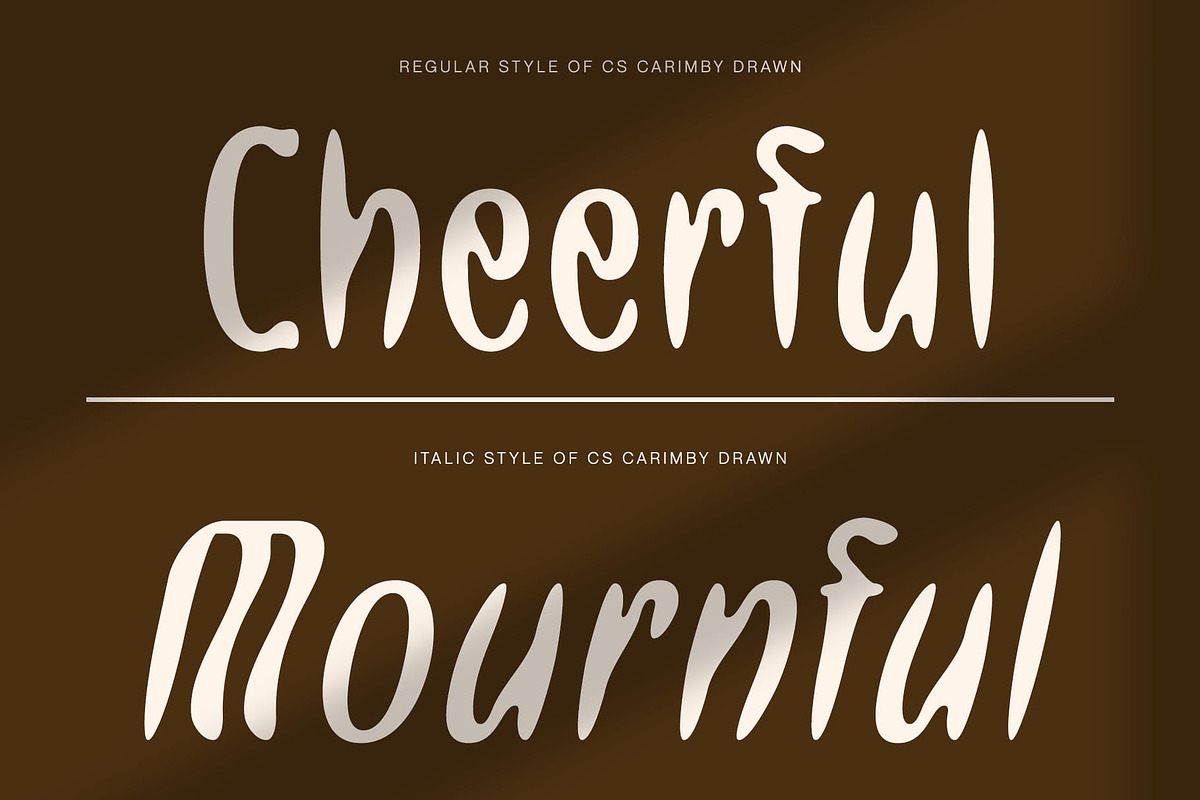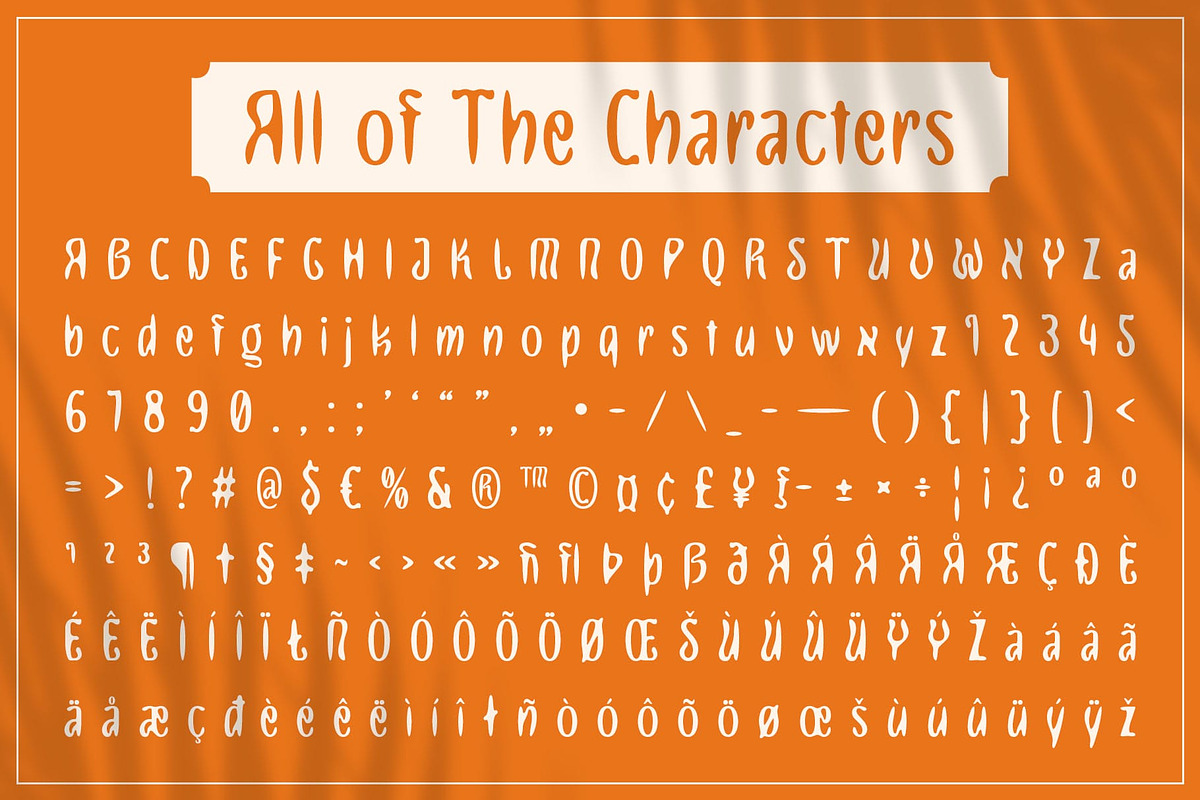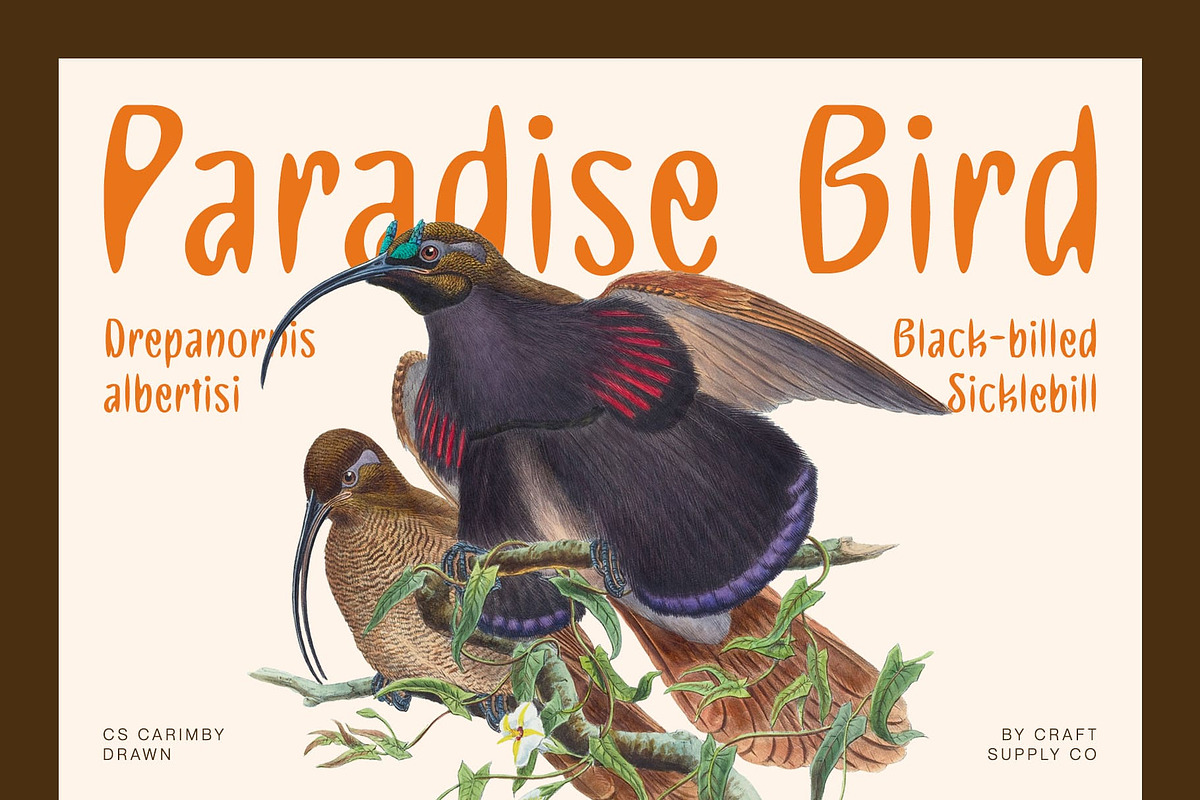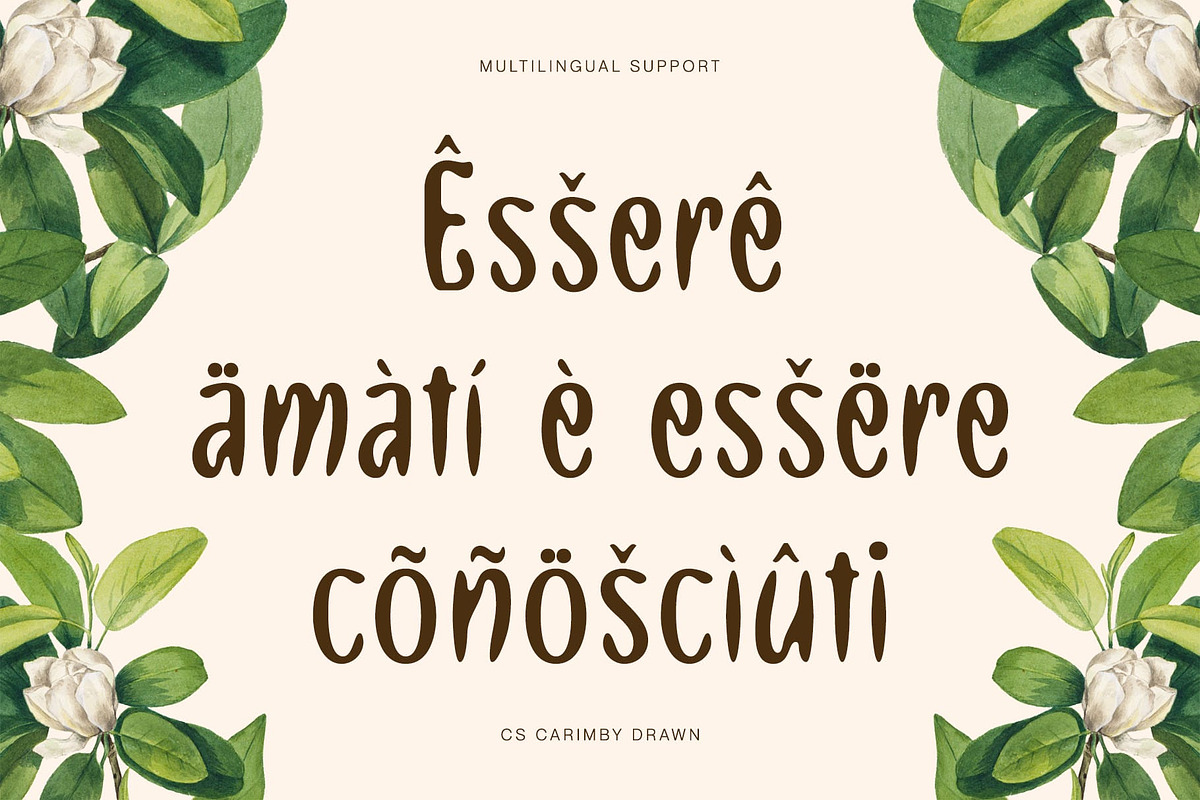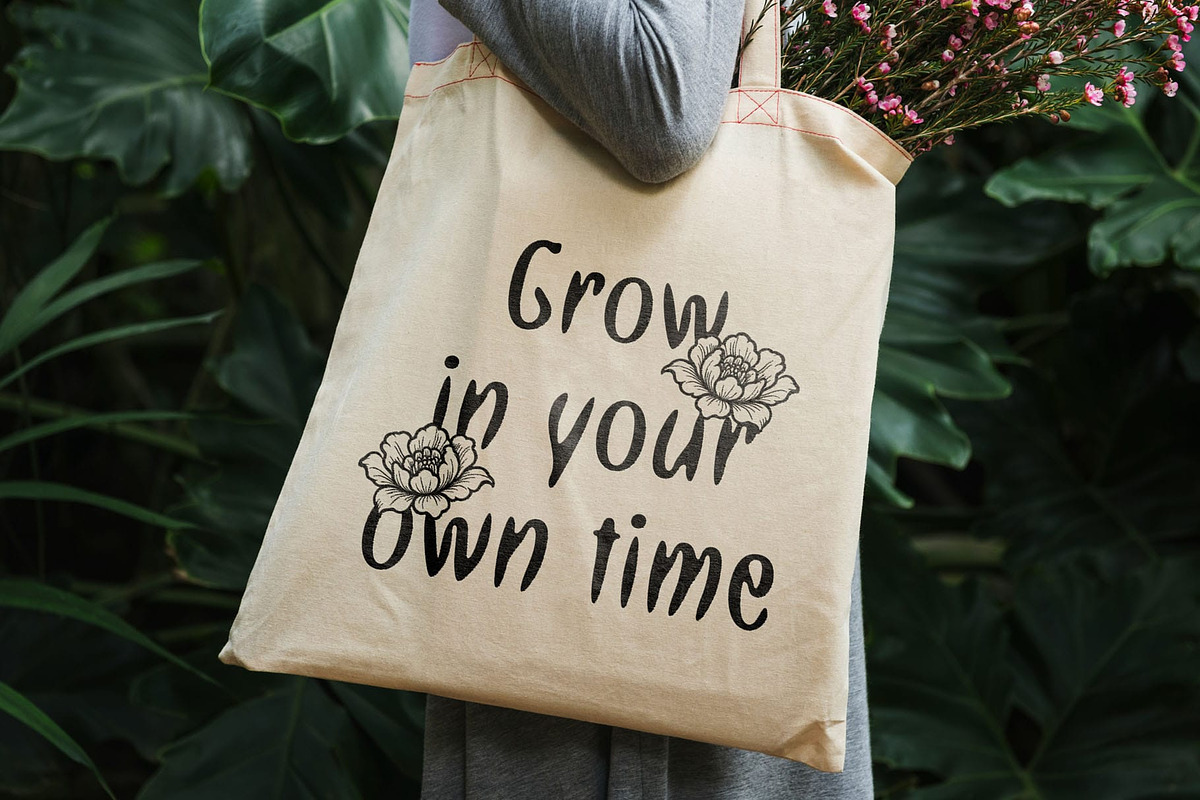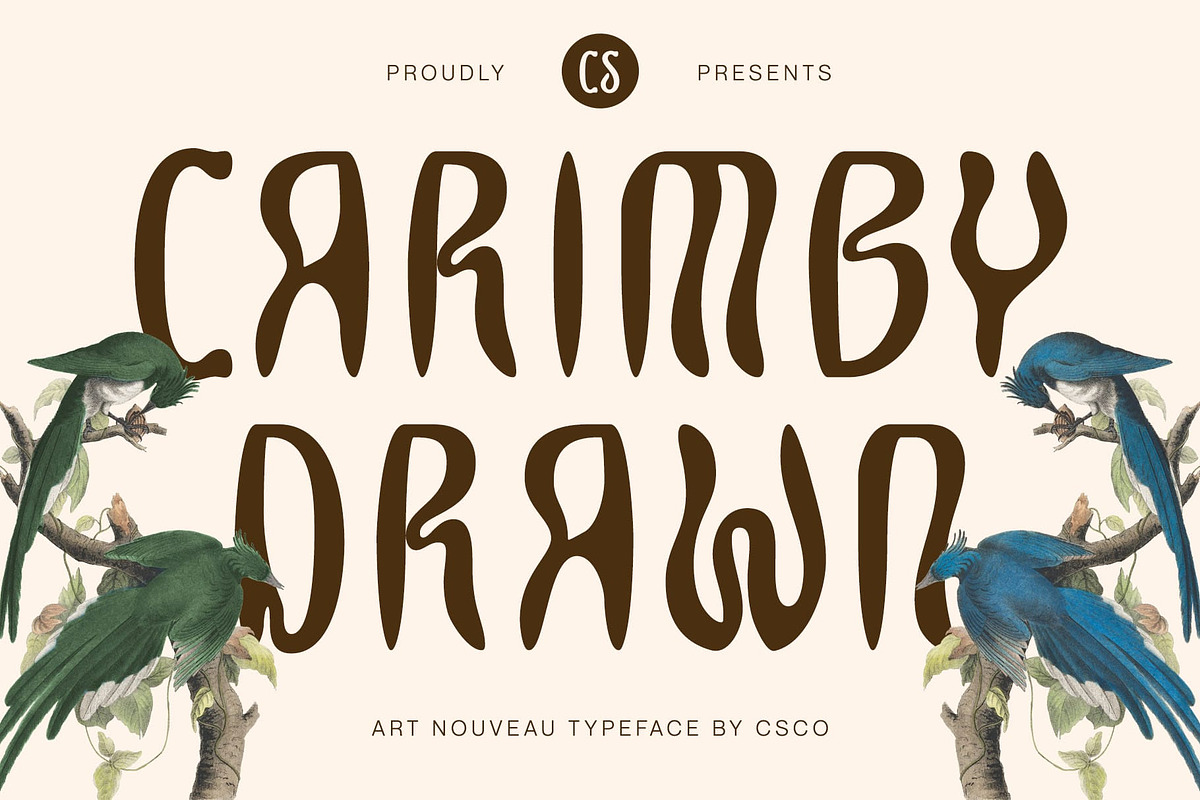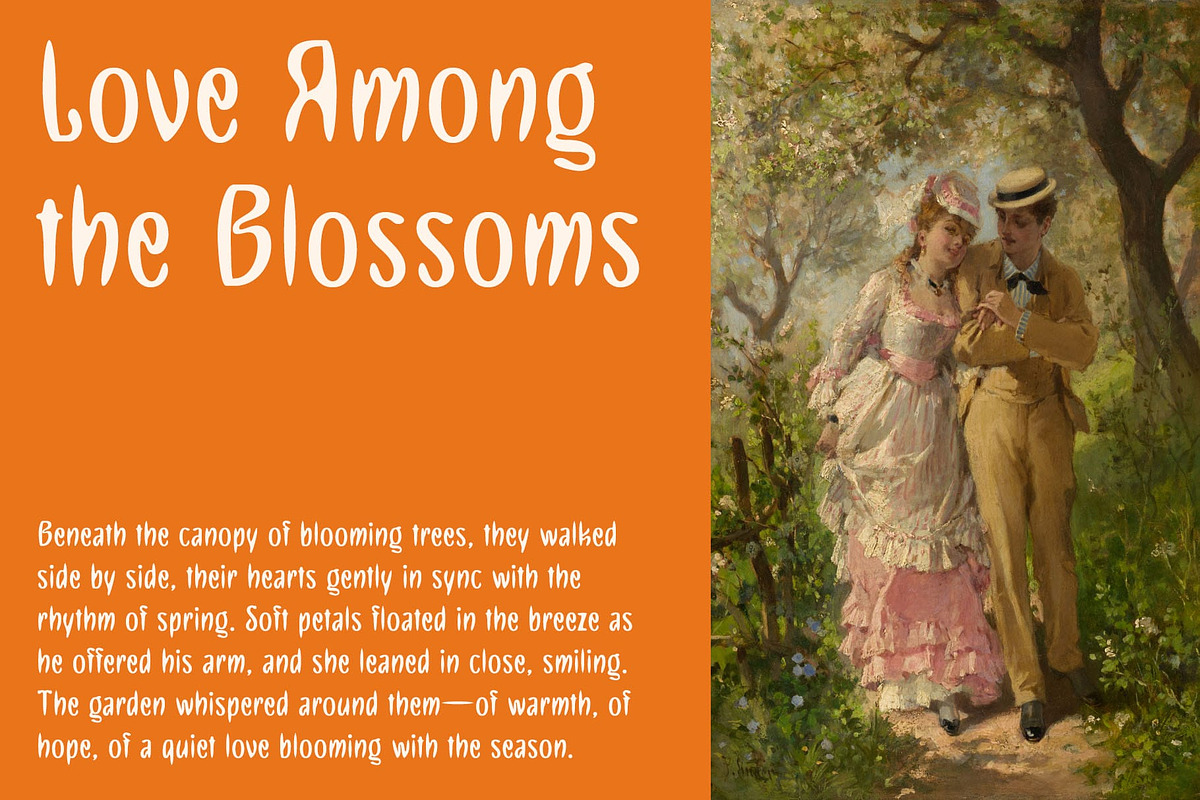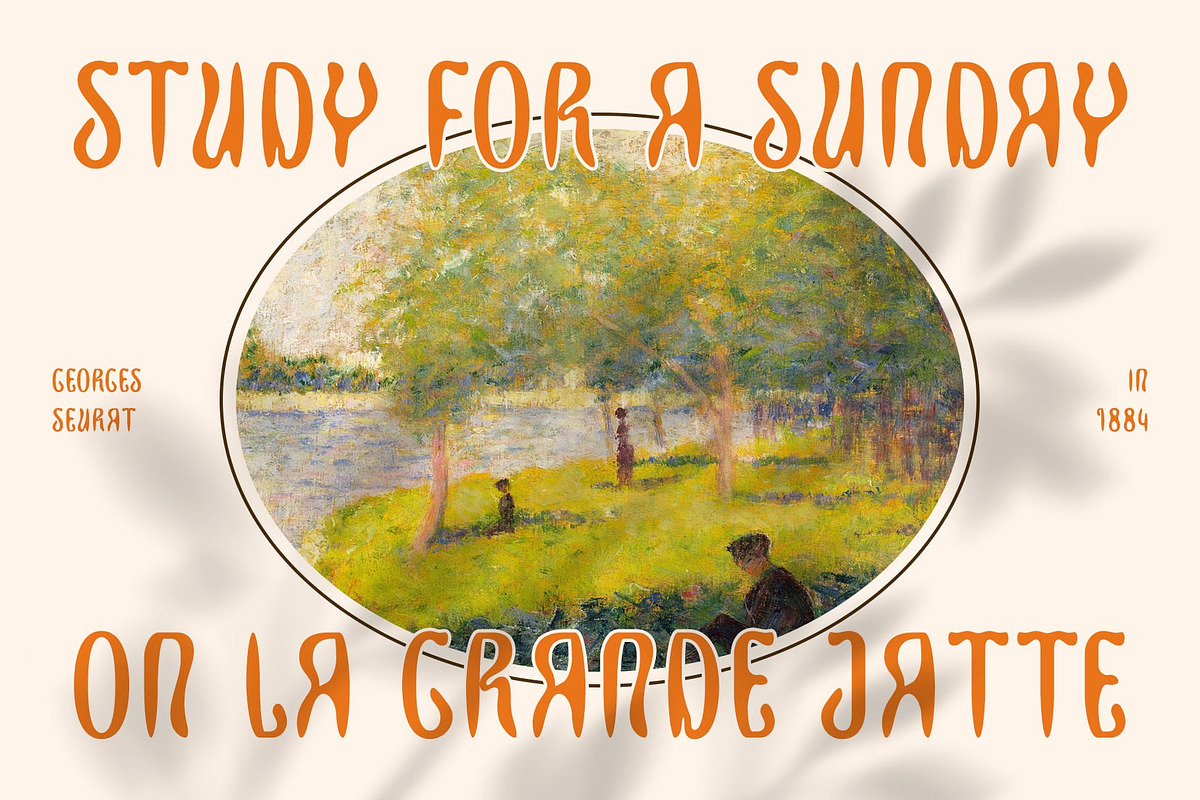
CS Carimby Drawn
CS Carimby Drawn – Modern Art Nouveau Elegance with a Handcrafted Soul
Slim and Elegant Form with Art Nouveau Influence this font is a modern sans serif display font that takes inspiration from the flowing curves and ornamental spirit of Art Nouveau. Its slim and graceful letterforms are carefully crafted to evoke elegance and fluidity, making it perfect for designs that require a refined and stylish visual identity.
Contemporary Simplicity Meets Classic Beauty While rooted in classic design principles, CS Carimby maintains a contemporary clarity. Its clean structure ensures readability and balance, offering a sophisticated yet minimalist aesthetic. The result is a font that feels both timeless and fresh—ideal for upscale, design-conscious projects.
Drawn Effect for Artistic Texture The hand-drawn effect adds subtle texture and character to each letter, softening the clean edges and introducing an organic, personal feel. This artistic imperfection enhances its uniqueness, making the font visually expressive and rich with handcrafted warmth.
Perfect for Elegant and Stylish Visuals Whether you’re working on luxury branding, fashion packaging, wedding invitations, or editorial spreads, this aesthetic font brings a touch of aesthetic charm and design sophistication. It’s the ideal choice for projects that seek to communicate grace, artistry, and individuality.